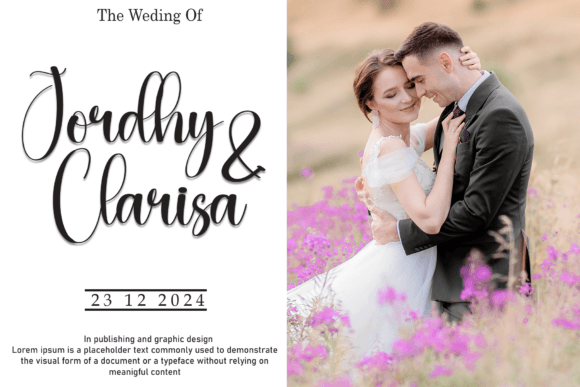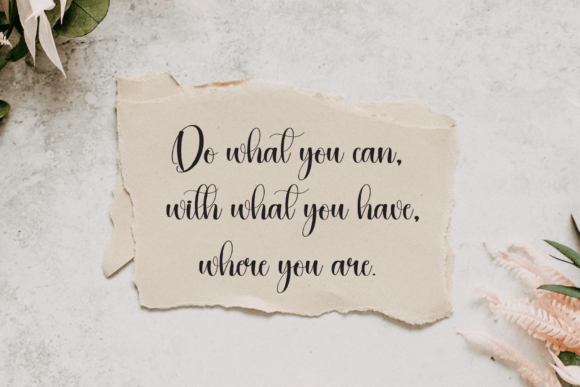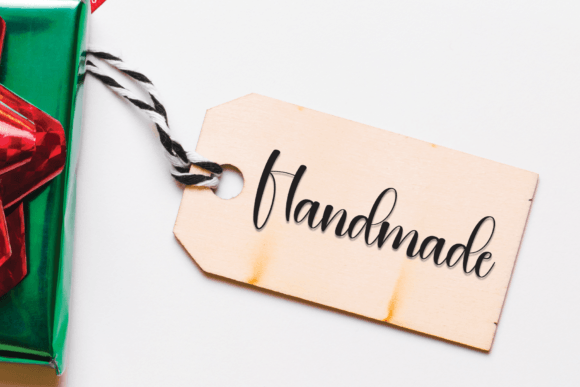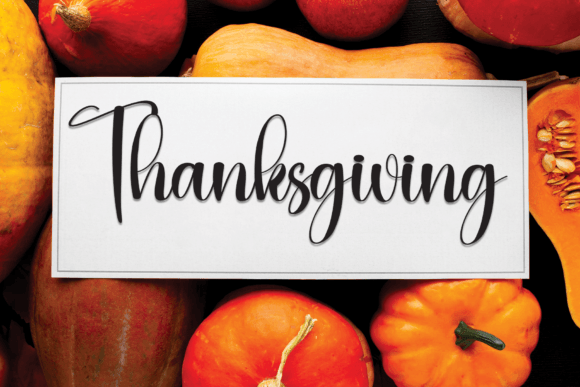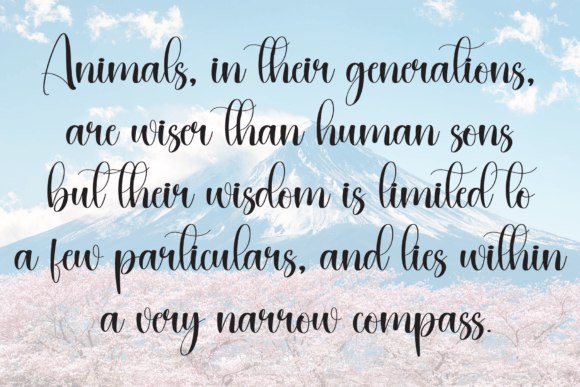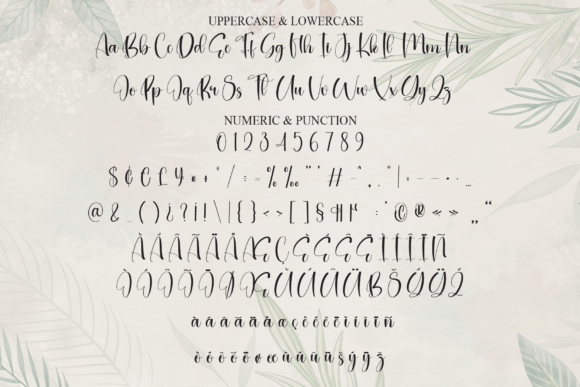
The Perfect Petal: Discovering the Charm of Botanical Font
Have you ever been working on a design project, and suddenly, the perfect font pops into your mind? For me, that moment came when I stumbled upon the Botanical Font. Its elegant, handwritten script captured my heart and sparked a wave of creativity.
As a designer, I know how crucial the right font can be in elevating a design from ordinary to extraordinary. That’s exactly what the Botanical Font does – it brings a sense of warmth and sophistication to any project. Whether it’s a wedding invitation, a brand’s logo, or a social media post, this font adds a personal touch that’s hard to replicate.
With its fluid strokes and natural flow, the Botanical Font is a valuable addition to any designer’s toolkit. Its versatility and charm make it perfect for a wide range of applications, from formal events to casual social media posts.
Key Features of Botanical Font
- Unique Characteristics: Botanical Font is a custom-designed font inspired by botanical illustrations from the 18th and 19th centuries. It features intricate details and ornate elements that evoke a sense of elegance and sophistication.
- Stylistic Sets and Ligatures: The font includes 6 stylistic sets and 30 ligatures, allowing designers to create complex and intricate typography that adds depth and visual interest to their work.
Designer Review: Botanical Font
Overall, I was really excited to dive into the Botanical Font, but my experience was a mixed bag. Let’s start with what works well:
- ✨ The font’s natural and organic feel is perfect for projects that require a touch of whimsy and greenery.
- ✨ The unique letterforms and flourishes make it stand out from more traditional serif fonts.
- ✨ The font’s script-based nature lends itself well to creative typography and hand-lettering projects.
- ⚠️ The font can be quite dense, which may make it difficult to read in certain contexts (e.g., body text).
- ⚠️ Some of the letterforms may not be suitable for all languages or character sets.
- ⚠️ The font’s unique style may not be to everyone’s taste, which could limit its versatility.
Overall, I think the Botanical Font is a great choice for projects that require a touch of elegance and sophistication. While it may not be the most practical or versatile font, it’s a great addition to any designer’s toolkit.
Tips for Getting the Most Out of Botanical Font
For the best results, use Botanical Font in a serif or script style to add a touch of elegance and sophistication to your designs.
Experiment with different font sizes and colors to create visual interest and hierarchy in your design.
Combine Botanical Font with high-quality images and illustrations to create a cohesive and professional look.
Alternatives to Botanical Font
Carolyna Pro is a high-end script font that combines elegance and sophistication. It is ideal for luxury branding, high-end packaging, and fashion designs. This font is more ornate than Botanical Font, making it perfect for designs that require a touch of glamour and sophistication.
Comparison: While Botanical Font is more natural and earthy, Carolyna Pro is more refined and luxurious. Botanical Font is better suited for designs that require a connection to nature, whereas Carolyna Pro is better suited for designs that require a touch of high-end sophistication.